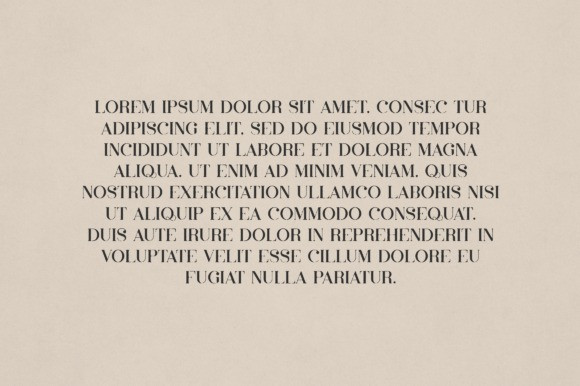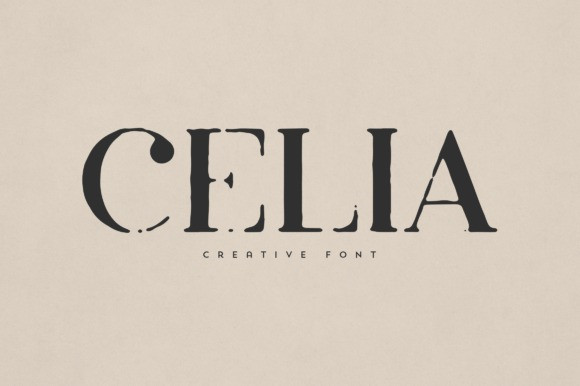
Celia Font
Celia Font is an elegant and versatile serif font that will make your typography truly unique! It will enchant every logo, branding, headline, or plain text!